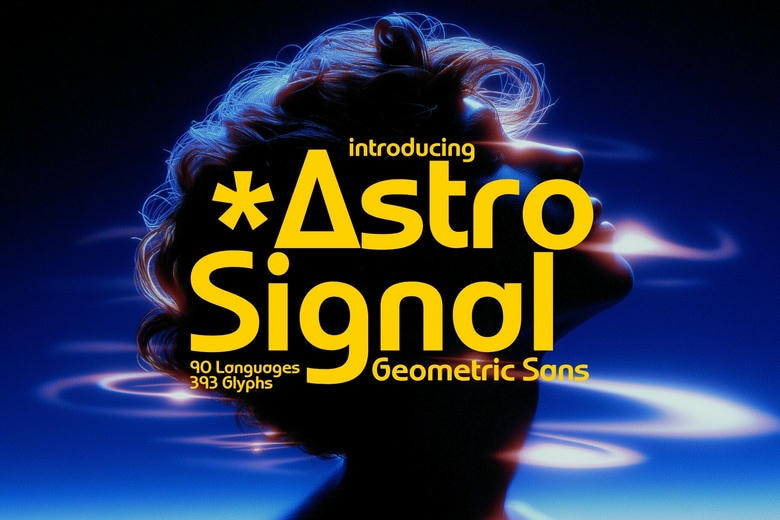
Astro Signal Font
Astro Signal font is an amazing geometric sans-serif font for people who require clarity, sophistication and timeless elegance. Its clean lines, balance and luxurious look means that it can be used in many different applications, both as corporate branding and high-fashion editorial work to advanced graphic design. All the letters, numbers, and symbols are crafted with a lot of care to give your projects an elegant and professional appearance.
The Astro Signal font is 90 language compatible, with 393 glyphs, and is so versatile with a global perspective, that there is no sacrifice in its smooth, modern texture. Be it in logo, marketing, websites, or social media graphics, this font is both accurate and appealing and it provides your work with a refined, luxurious finish that appeals to the grace.
Astro Signal Sans Serif Font